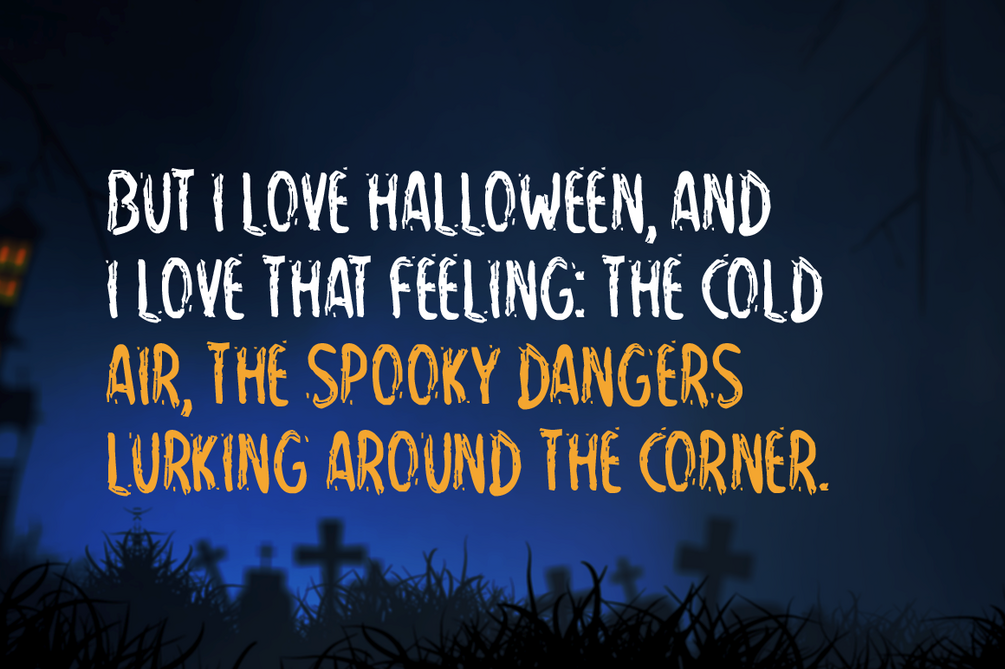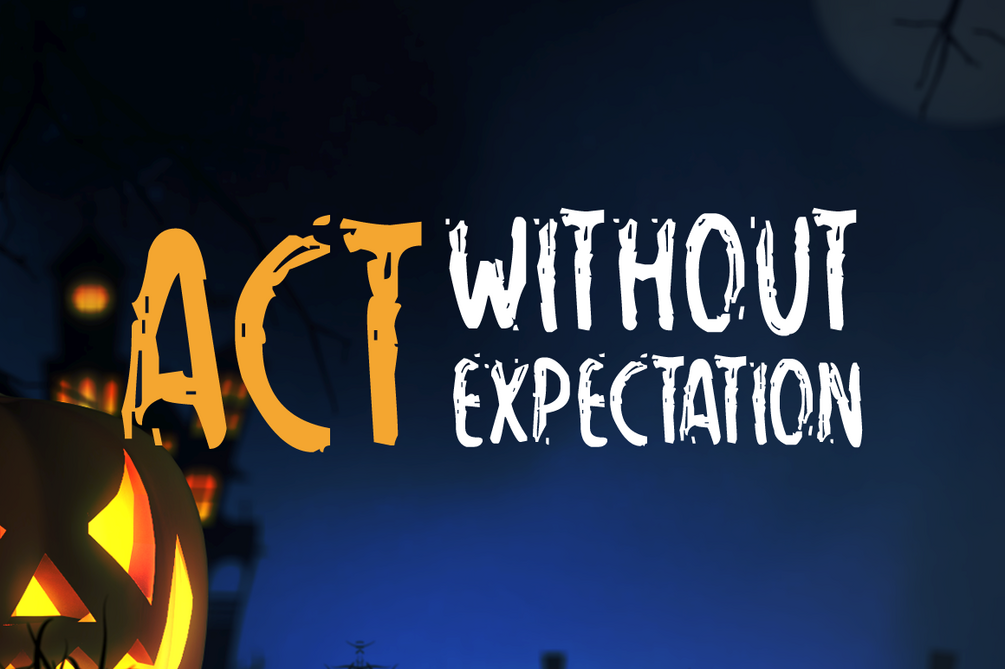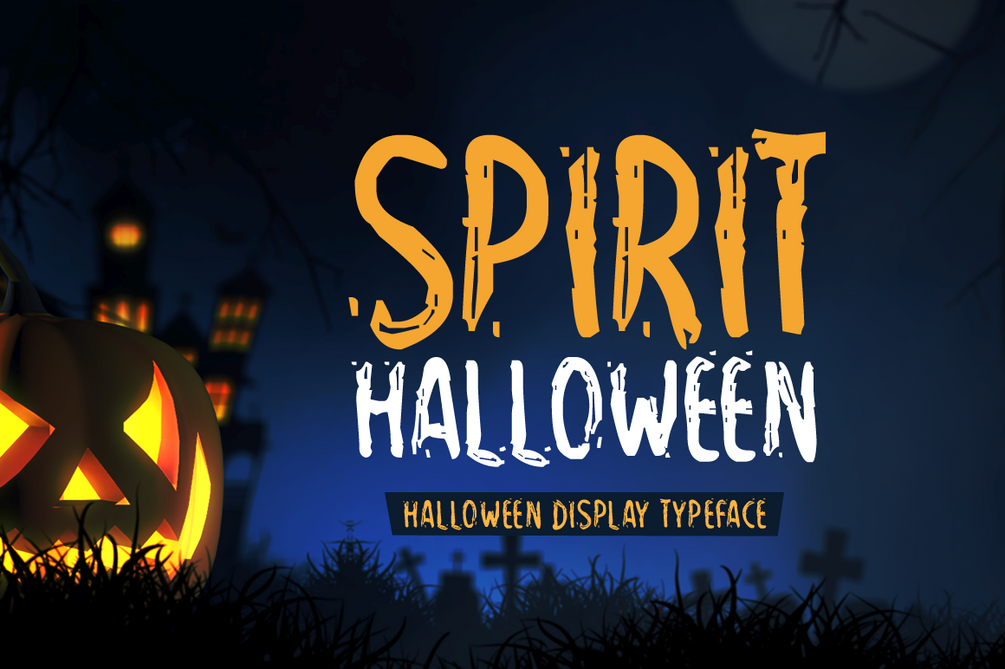
Spirit Halloween
Spirit Halloween is a brand new handwritten display font. Spirit Halloween is perfectly suited for stationery, logos, t-shirt, paper, print design, website header, photo frame, flyer, music cover, poster, image slider and much more.